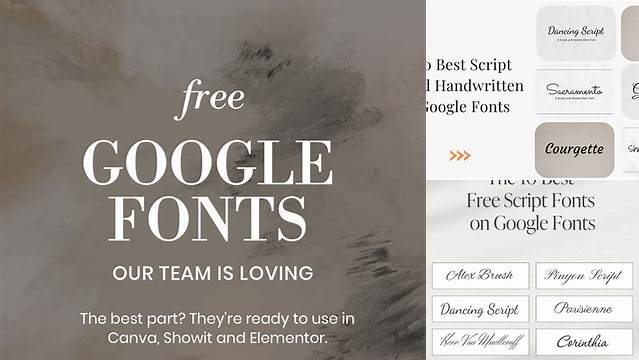
Best Handwriting Fonts On Google Fonts In 2024
Hey guys! Are you on the hunt for the best handwriting Google Fonts to spice up your designs? You've landed in the right place! In this article, we're diving deep into the world of fonts that mimic natural handwriting, perfect for adding a personal and authentic touch to your projects. Whether you're a designer, blogger, or just someone who loves cool fonts, we've got you covered. We'll explore why handwriting fonts are so popular, what makes a good handwriting font, and, of course, showcase some of the top handwriting Google Fonts you can start using today. So, let's jump right in and discover the magic of handwritten typography!
Why Use Handwriting Fonts?
Before we dive into the specifics, let's talk about why you might want to use handwriting fonts in the first place. Handwriting fonts have a unique charm that sets them apart from traditional typefaces. They bring a sense of warmth, authenticity, and personality to any project. Think about it: in a world dominated by digital perfection, a touch of the handwritten can make your work stand out and feel more human.
One of the primary reasons to use handwriting fonts is their ability to create a personal connection. Whether you're designing a wedding invitation, a thank-you card, or a blog header, these fonts can convey a sense of intimacy and care. They make the recipient feel like the message was crafted specifically for them, adding a special touch that can't be replicated by standard fonts. For instance, imagine receiving a birthday card with a neatly printed sans-serif font versus one with a flowing, handwritten script. The latter immediately feels more personal and heartfelt.
Another key benefit of using handwriting fonts is their versatility. They can be used in a wide range of contexts, from formal to casual. A well-chosen handwriting font can add a touch of elegance to wedding invitations or a playful vibe to children's books. They are also excellent for branding purposes, particularly for businesses that want to project a friendly and approachable image. Think of a bakery using a cute, handwritten font for their logo – it instantly gives the impression of homemade goodness.
In the digital realm, handwriting fonts can make websites and social media graphics feel more engaging and less corporate. They can break the monotony of uniform text and draw the reader's eye. For example, a blog using a handwriting font for headings or pull quotes can create a more visually appealing and reader-friendly experience. This can be especially effective for blogs or websites that focus on creative topics, such as arts, crafts, or lifestyle content.
Handwriting fonts are also incredibly useful for creating a vintage or nostalgic feel. If you're working on a project that needs to evoke a sense of the past, these fonts can be your best friend. They can mimic the look of old letters, diaries, or handwritten notes, adding a historical touch to your designs. This makes them perfect for projects like historical fiction book covers, vintage-themed posters, or even family history websites.
Moreover, handwriting fonts can improve readability in certain contexts. While they might not be ideal for large blocks of text, they can be excellent for headings, subheadings, and short snippets of text that need to stand out. A well-chosen handwriting font can grab the reader's attention and make key points more memorable. However, it's crucial to use them sparingly and ensure they complement the overall design rather than detracting from it.
Finally, let's not forget the sheer aesthetic appeal of handwriting fonts. They are simply beautiful! The flowing lines, unique letterforms, and natural imperfections make them visually interesting and pleasing to the eye. They can add a touch of artistry and flair to any project, making it more visually appealing and engaging. This is why so many designers and creatives love experimenting with handwriting fonts – they offer a unique way to express creativity and personality.
In summary, the use of handwriting fonts can significantly enhance your design projects by adding a personal touch, versatility, vintage appeal, improved readability in certain contexts, and overall aesthetic beauty. They are a powerful tool in any designer's toolkit, and when used correctly, they can elevate your work to the next level. So, next time you're looking to add a bit of warmth and personality to your designs, remember the magic of handwriting fonts!
What Makes a Good Handwriting Font?
Now that we've established why handwriting fonts are so great, let's talk about what makes a good handwriting font. Not all handwriting fonts are created equal, and choosing the right one can make a huge difference in your project's success. A good handwriting font should be legible, versatile, and, most importantly, feel authentic. Let's break down these key elements in more detail.
First and foremost, legibility is crucial. A beautiful font is useless if no one can read it! When evaluating handwriting fonts, consider how easily the letters can be distinguished from one another. Are the letterforms clear and well-defined? Is the spacing appropriate? A font that's too messy or overly stylized can be difficult to read, especially in longer pieces of text. Imagine trying to decipher a thank-you note written in an illegible scrawl – it defeats the purpose of the personal touch you're trying to convey. So, always prioritize legibility when selecting a handwriting font.
Versatility is another key factor. A good handwriting font should be adaptable to a variety of contexts and design styles. Can it be used effectively for both headings and body text? Does it work well in both digital and print formats? A versatile font will give you more flexibility and allow you to use it in a wider range of projects. For example, a font that looks great on a wedding invitation might also work well on a blog header or a social media graphic. Look for fonts that offer different weights (e.g., light, regular, bold) and styles (e.g., italic) to increase their versatility.
Authenticity is perhaps the most important characteristic of a good handwriting font. The goal is to mimic the look and feel of natural handwriting, so the font should have a certain level of imperfection. This means avoiding fonts that look too perfect or machine-generated. Look for fonts that have variations in stroke thickness, letter slant, and spacing. Subtle inconsistencies can make a font feel more genuine and less artificial. Think about real handwriting – it's rarely perfectly uniform, and those slight variations are what give it character. A truly authentic handwriting font will capture this essence.
Beyond these core characteristics, there are other factors to consider when choosing a handwriting font. Character set is one of them. Does the font include all the characters you need, such as punctuation marks, numerals, and accented characters? If you're working on a project that requires specific symbols or language support, make sure the font has a comprehensive character set. This will save you the hassle of trying to find a complementary font for missing characters.
Licensing is another important consideration, especially if you're using the font for commercial projects. Make sure you understand the font's license terms and conditions. Can you use it for free for personal projects? Do you need to purchase a license for commercial use? Are there any restrictions on how you can use the font? Always check the licensing information to avoid any legal issues down the road. Google Fonts, for example, offers a wide range of handwriting fonts that are free to use for both personal and commercial projects, making them a great option for many designers.
Readability in context is also crucial. Even if a font is legible on its own, it might not work well in certain design contexts. Consider the font's size, color, and the background it will be placed on. A font that looks great in a large headline might be difficult to read in a smaller body text. Experiment with different sizes and colors to see how the font performs in different situations. Also, make sure the font contrasts well with the background to ensure readability.
Finally, consider the overall style and tone of the font. Does it match the mood and message of your project? A playful, whimsical font might be perfect for a children's book, but it would be out of place on a formal invitation. Think about the overall impression you want to create and choose a font that aligns with that vision. Is it elegant and sophisticated? Casual and friendly? Bold and dramatic? The right font can enhance your message and make your design more impactful.
In conclusion, a good handwriting font should be legible, versatile, and authentic. It should also have a comprehensive character set, a suitable license for your needs, and be readable in context. By considering these factors, you can choose a handwriting font that will elevate your designs and add that perfect personal touch. So, take your time, explore your options, and find the font that speaks to you and your project!
Top Handwriting Google Fonts
Alright, guys, let's get to the good stuff! We've talked about why handwriting fonts are awesome and what to look for in a great one. Now, let's dive into some of the top handwriting Google Fonts that you can use right away. Google Fonts is a fantastic resource because it offers a huge selection of fonts that are free to use for both personal and commercial projects. This makes it super accessible for everyone, from professional designers to hobbyists. So, without further ado, here are some of our favorite handwriting Google Fonts, each with its own unique style and charm.
1. Patrick Hand
Patrick Hand is a super popular choice for its clean, legible, and friendly appearance. This font is designed to mimic the casual handwriting you might see in a notebook or on a whiteboard. It's very readable, making it a great option for body text, headings, and even longer blocks of content. The letterforms are clear and well-defined, and the overall style is approachable and inviting. Patrick Hand is particularly well-suited for projects that need a touch of informality and warmth. Think blog posts, classroom materials, or casual invitations. Its simplicity and clarity make it a versatile choice for a wide range of applications.
One of the best things about Patrick Hand is its excellent readability. The letters are spaced well, and the strokes are consistent, making it easy to read even in smaller sizes. This is a crucial factor for body text, where legibility is paramount. The font also has a slightly rounded appearance, which adds to its friendly and approachable feel. It doesn't feel overly stylized or fussy, making it a good choice for projects that need to convey a sense of authenticity and sincerity.
Patrick Hand's versatility also shines through in its ability to work well in both digital and print formats. It looks great on screens, whether it's used for website content or social media graphics. It also prints beautifully, making it a reliable choice for printed materials like flyers, brochures, and newsletters. This versatility makes it a go-to option for designers who need a font that can work across multiple platforms.
In terms of style, Patrick Hand strikes a nice balance between casual and professional. It's not so informal that it looks out of place in a business setting, but it's also not so formal that it feels stiff or impersonal. This makes it a great choice for businesses that want to project a friendly and approachable image. For example, a small business might use Patrick Hand for its website headings or its email newsletters to create a more personal connection with its customers.
Overall, Patrick Hand is a fantastic handwriting font that offers a winning combination of legibility, versatility, and friendliness. If you're looking for a font that's easy to read, works well in a variety of contexts, and has a warm and inviting feel, Patrick Hand is definitely worth checking out. It's a reliable choice that can add a touch of personality to your projects without sacrificing clarity or professionalism.
2. Indie Flower
Next up, we have Indie Flower, which is another popular handwriting font with a bit more flair and personality. Indie Flower has a slightly whimsical and playful feel, making it a great choice for projects that need a touch of fun and creativity. The letterforms are a bit more stylized than Patrick Hand, with a slightly irregular and bouncy appearance. This gives the font a unique character that can make your designs stand out.
Indie Flower is particularly well-suited for projects that target a younger audience or that have a creative and artistic theme. Think children's books, blog headers for creative websites, or social media graphics for art-related businesses. Its playful style makes it a great choice for projects that need to convey a sense of joy and imagination. It's also a good option for projects that need a bit of a handmade feel, such as crafts websites or DIY tutorials.
One of the key characteristics of Indie Flower is its distinctive letterforms. The letters have a slightly irregular shape and a bouncy baseline, which gives the font its playful and whimsical appearance. This irregularity is part of its charm, but it also means that it's not quite as legible as Patrick Hand. While Indie Flower is still very readable, it's best used in shorter blocks of text, such as headings, subheadings, or pull quotes. It might not be the best choice for long paragraphs of body text, where legibility is paramount.
Despite its slightly less formal style, Indie Flower is still a versatile font that can be used in a variety of contexts. It works well in both digital and print formats, and it can be paired with a variety of other fonts to create different looks. For example, it can be paired with a clean sans-serif font for a modern and playful look, or it can be paired with a more traditional serif font for a more vintage and whimsical feel.
In terms of style, Indie Flower has a distinctively casual and friendly vibe. It's a font that feels approachable and inviting, making it a great choice for projects that want to create a personal connection with the audience. For example, a bakery might use Indie Flower for its logo or its menu to convey a sense of homemade goodness. Or a children's clothing store might use it for its website headings to create a fun and playful atmosphere.
Overall, Indie Flower is a fantastic handwriting font that offers a unique blend of playfulness and personality. If you're looking for a font that's fun, creative, and a bit whimsical, Indie Flower is definitely worth considering. Just keep in mind that it's best used in shorter blocks of text to ensure optimal legibility.
3. Permanent Marker
If you're after a bold and attention-grabbing handwriting font, Permanent Marker is an excellent choice. This font mimics the look of writing with a thick permanent marker, giving it a strong and impactful presence. It's perfect for headings, posters, and any design element where you want to make a statement. Permanent Marker exudes confidence and a bit of edginess, making it ideal for projects that need to stand out.
The bold nature of Permanent Marker means it's best used sparingly. It's not a font you'd want to use for large blocks of text, as its thick strokes can become overwhelming and difficult to read. However, for short, impactful headings or call-to-action buttons, it's incredibly effective. Think of using it for event posters, website banners, or even in logos where a strong, handwritten feel is desired.
One of the standout features of Permanent Marker is its raw, unfiltered aesthetic. It doesn't try to be overly polished or refined; instead, it embraces the imperfections of natural handwriting. This gives it an authentic and gritty feel, making it a great choice for projects that need a bit of an edge. For example, a band might use Permanent Marker for their album art, or a street-style clothing brand might use it for their marketing materials.
Permanent Marker's character set is also quite comprehensive, including a full range of uppercase and lowercase letters, as well as numerals and punctuation marks. This gives you a lot of flexibility in how you use the font, allowing you to create a wide range of different typographic compositions. However, it's worth noting that the font only comes in one weight, so you won't be able to vary the thickness of the strokes.
In terms of style, Permanent Marker is bold, confident, and a bit rebellious. It's a font that demands attention, making it a great choice for projects that need to make a statement. It's not the most versatile font – it wouldn't be appropriate for formal invitations or elegant designs – but for projects that need a strong and impactful handwritten feel, it's hard to beat.
Overall, Permanent Marker is a fantastic handwriting Google Font for anyone who needs a bold and attention-grabbing typeface. Its strong, marker-like strokes and raw aesthetic make it a standout choice for headings, posters, and other design elements where you want to make a statement. Just remember to use it sparingly and in the right context, and it will definitely add a punch to your designs.
4. Amatic SC
Amatic SC is a unique and versatile handwriting font that stands out due to its condensed, all-caps design. This font has a tall, narrow appearance that gives it a distinctive look, making it ideal for headings, titles, and short bursts of text. Amatic SC is particularly effective for adding a touch of retro or vintage flair to your projects, while still maintaining a modern and clean feel.
The all-caps nature of Amatic SC means it's not suitable for body text, as large blocks of uppercase letters can be difficult to read. However, for headings and titles, it's incredibly effective at grabbing attention. Its condensed design allows you to fit more text into a smaller space, making it a great choice for designs where space is limited. Think of using it on posters, flyers, or website headers where you need to make a statement without taking up too much room.
One of the great things about Amatic SC is its versatility. Despite being an all-caps font, it manages to feel both playful and sophisticated. This makes it a good choice for a wide range of projects, from retro-themed designs to modern, minimalist layouts. It works particularly well when paired with a clean sans-serif font for body text, creating a nice contrast between the bold heading and the more understated text.
Amatic SC's character set is comprehensive, including a full range of letters, numerals, and punctuation marks. It also includes a few stylistic alternates, which can be used to add a bit of variation to your designs. The font is available in one weight, but its bold design ensures that it has plenty of impact.
In terms of style, Amatic SC has a distinctive retro-modern feel. It's not quite as overtly vintage as some handwriting fonts, but it definitely has a touch of nostalgia. This makes it a great choice for projects that need to evoke a sense of the past while still feeling fresh and contemporary. For example, a coffee shop might use Amatic SC for its signage to create a welcoming and stylish atmosphere.
Overall, Amatic SC is a fantastic handwriting Google Font for anyone who needs a bold, condensed, and versatile typeface. Its all-caps design and retro-modern feel make it a standout choice for headings, titles, and other design elements where you want to make a statement. If you're looking for a font that's both eye-catching and easy to read, Amatic SC is definitely worth checking out.
5. Coming Soon
Coming Soon is another excellent handwriting Google Font that brings a unique and personal touch to any project. This font is designed to mimic the style of neat, almost architectural handwriting, making it a fantastic choice for designs that require a balance between clarity and character. Coming Soon has a distinctive, slightly technical feel, which sets it apart from more overtly casual handwriting fonts.
The neatness of Coming Soon makes it remarkably legible, even in longer blocks of text. This is a significant advantage, as many handwriting fonts are best used sparingly for headings or short phrases. With Coming Soon, you have the flexibility to use it for body text as well, which can create a cohesive and personal feel throughout your design. Think of using it in a personal blog, a handwritten-style resume, or even in infographics where you want to add a human touch without sacrificing readability.
One of the key features of Coming Soon is its clean, almost monolinear stroke. This means that the thickness of the lines remains fairly consistent throughout each letter, giving the font a sense of order and precision. This contrasts with some handwriting fonts that have more varied stroke thicknesses, which can give them a more casual or whimsical appearance. The evenness of Coming Soon contributes to its excellent legibility and its slightly technical feel.
Coming Soon's versatility is another major plus. While it works beautifully for body text, it's also effective for headings, subheadings, and captions. Its clean design pairs well with a variety of other fonts, from classic serifs to modern sans-serifs. This makes it a versatile addition to any designer's toolkit.
The character set for Coming Soon is comprehensive, including a full range of uppercase and lowercase letters, numerals, punctuation marks, and even some special characters. This gives you plenty of flexibility in how you use the font, allowing you to create a wide range of different typographic compositions.
In terms of style, Coming Soon strikes a nice balance between personal and professional. It has the warmth and character of handwriting, but it also has a certain level of neatness and precision that makes it suitable for more formal contexts. This makes it a great choice for businesses or individuals who want to project a friendly yet competent image. For example, a freelance designer might use Coming Soon for their website to showcase their personal style while still maintaining a professional appearance.
Overall, Coming Soon is a top-notch handwriting Google Font that offers a unique combination of legibility, versatility, and character. Its neat, almost architectural style makes it a great choice for a wide range of projects, from body text to headings. If you're looking for a handwriting font that's both personal and professional, Coming Soon is definitely worth considering.
So there you have it, guys! We've explored the world of handwriting Google Fonts and highlighted some of the best options available in 2024. These fonts are a fantastic way to add a personal touch to your designs, whether you're working on a website, a poster, or a social media graphic. Remember, a great handwriting font should be legible, versatile, and authentic. The fonts we've discussed today – Patrick Hand, Indie Flower, Permanent Marker, Amatic SC, and Coming Soon – each offer something unique, so you're sure to find one that fits your project perfectly.